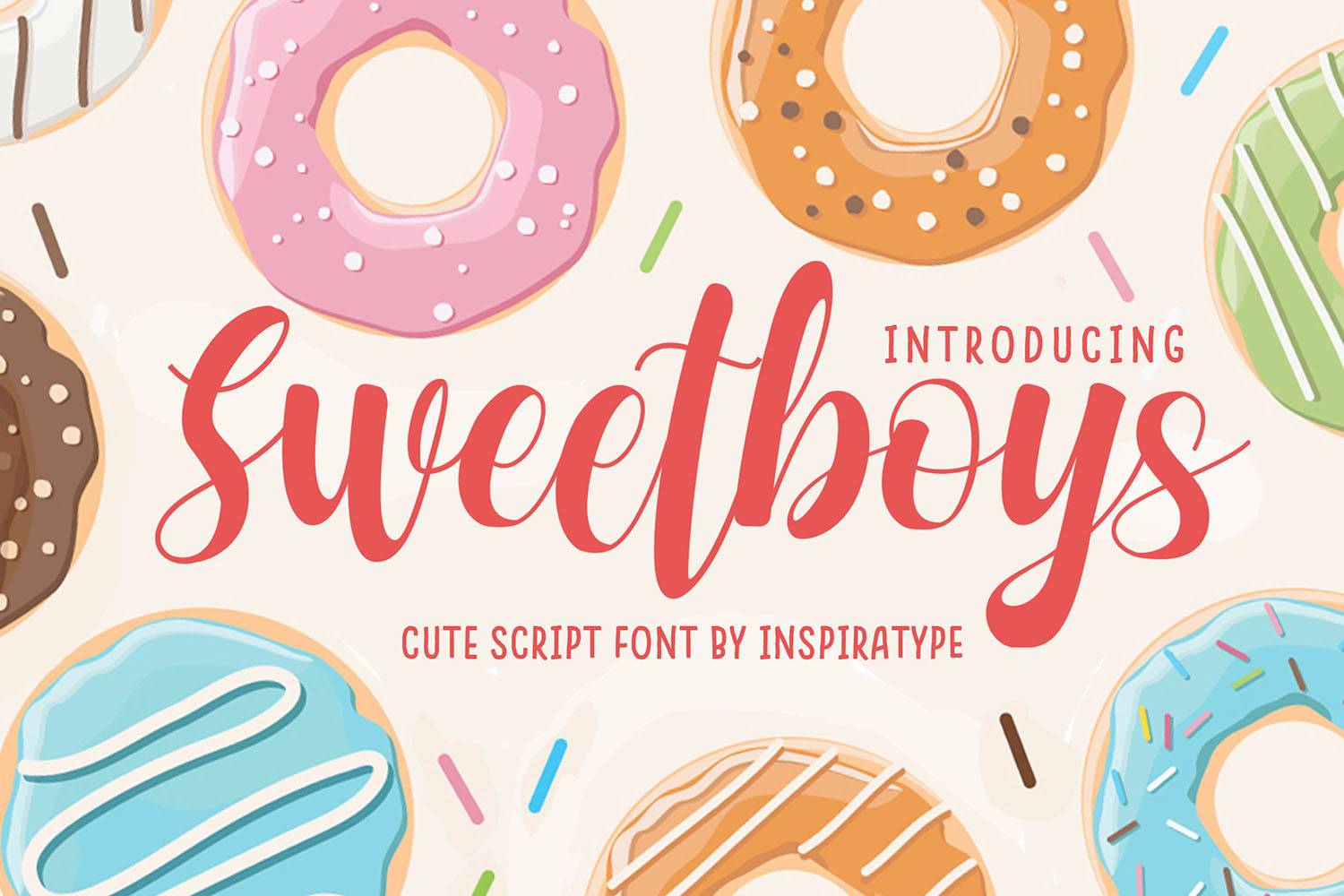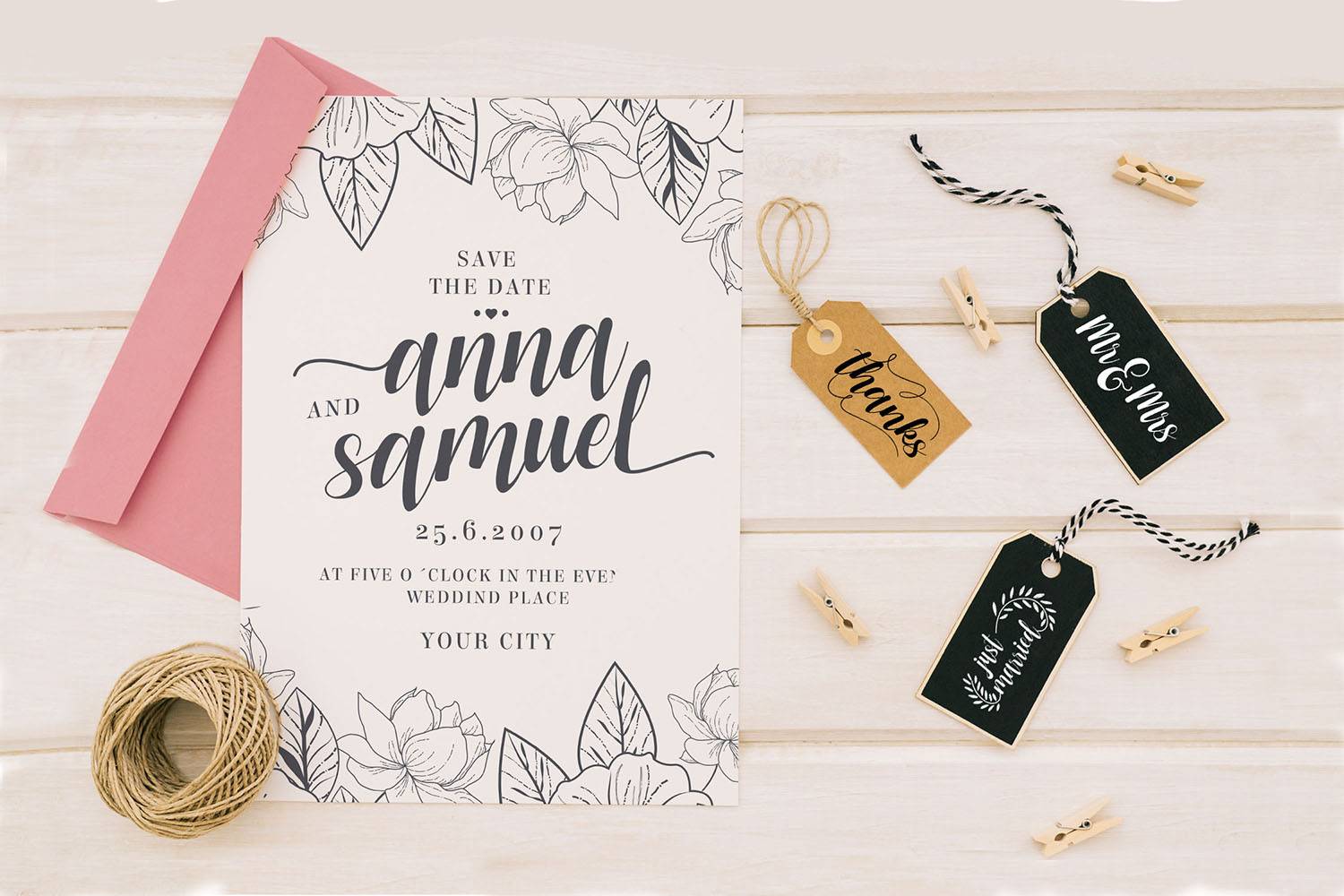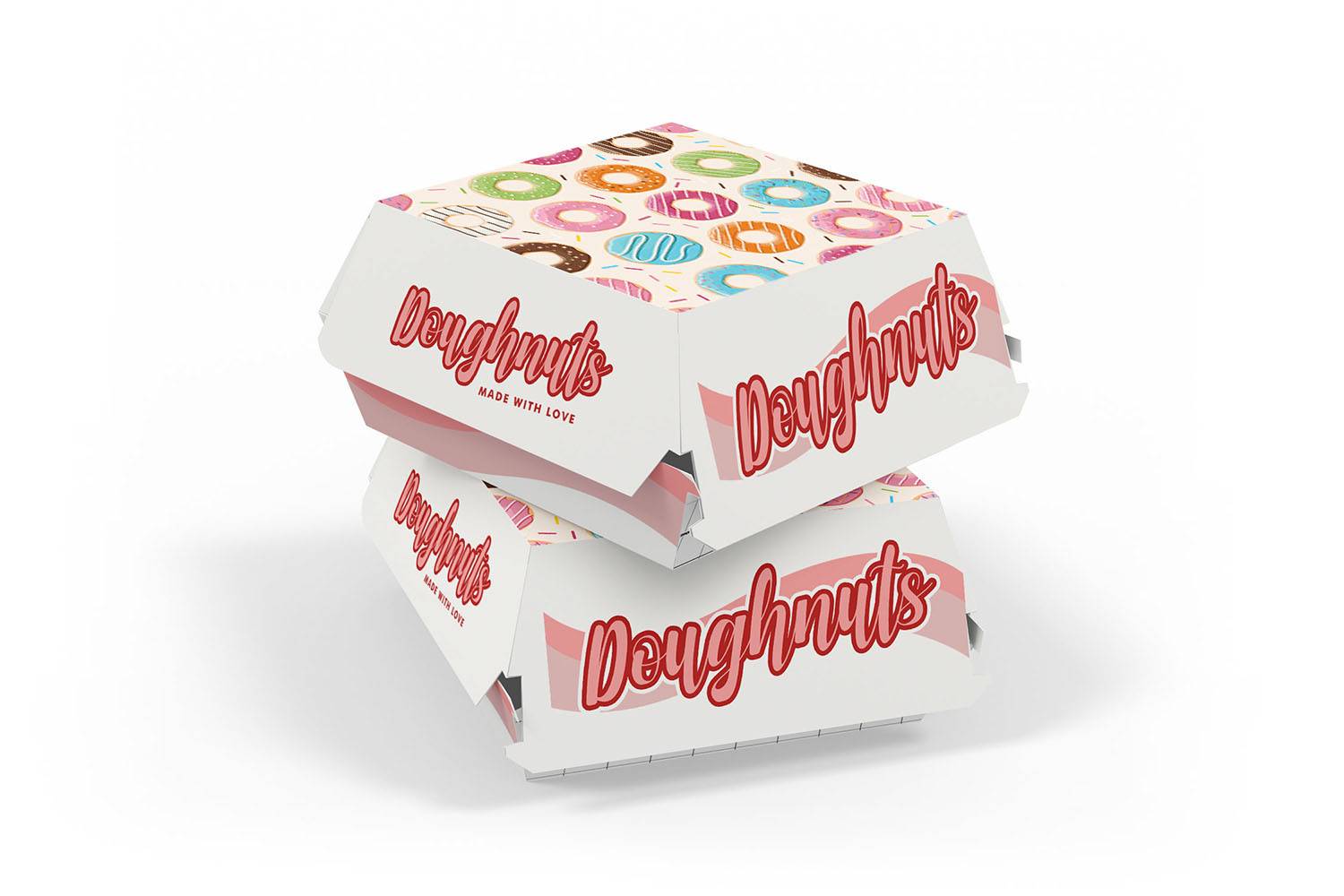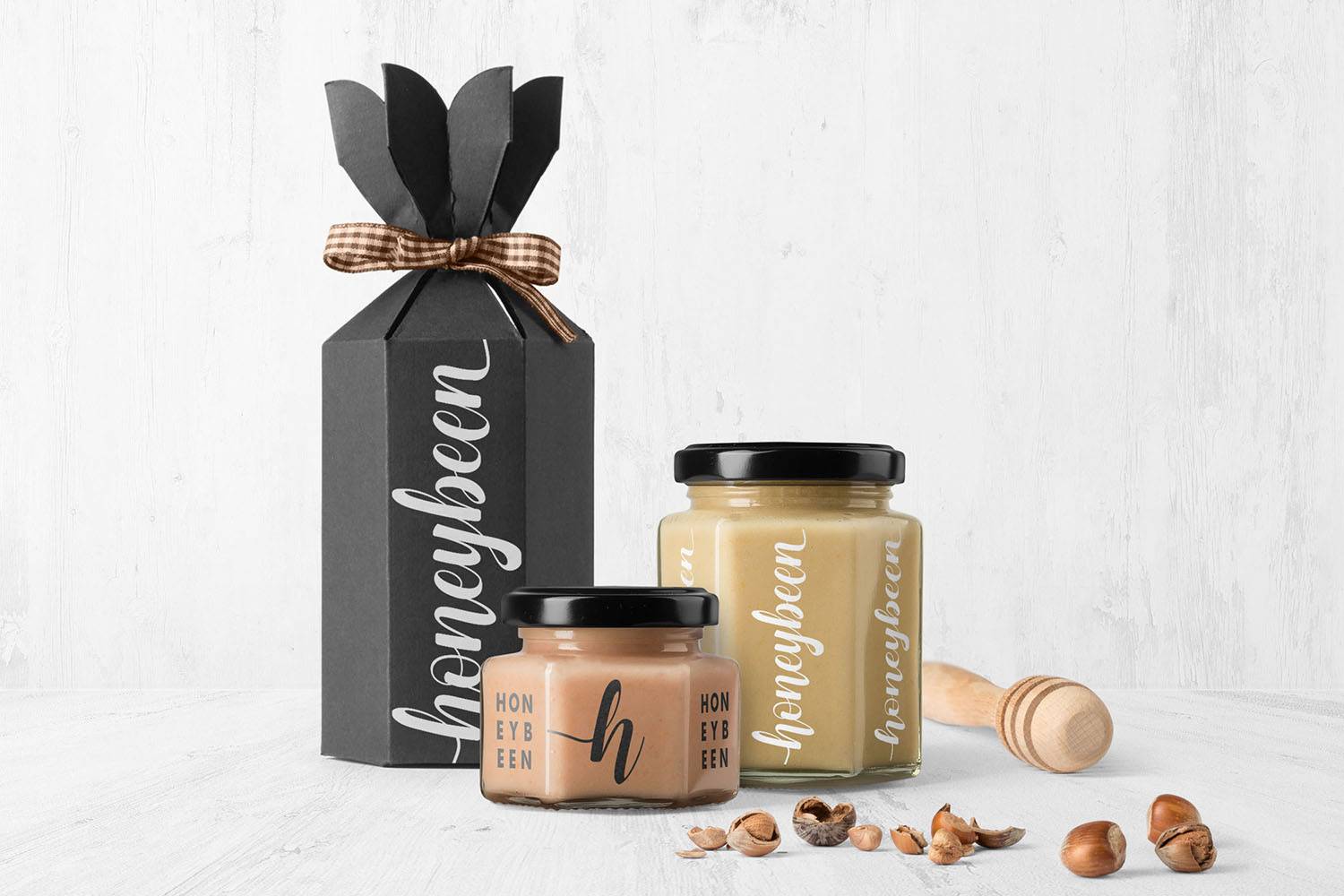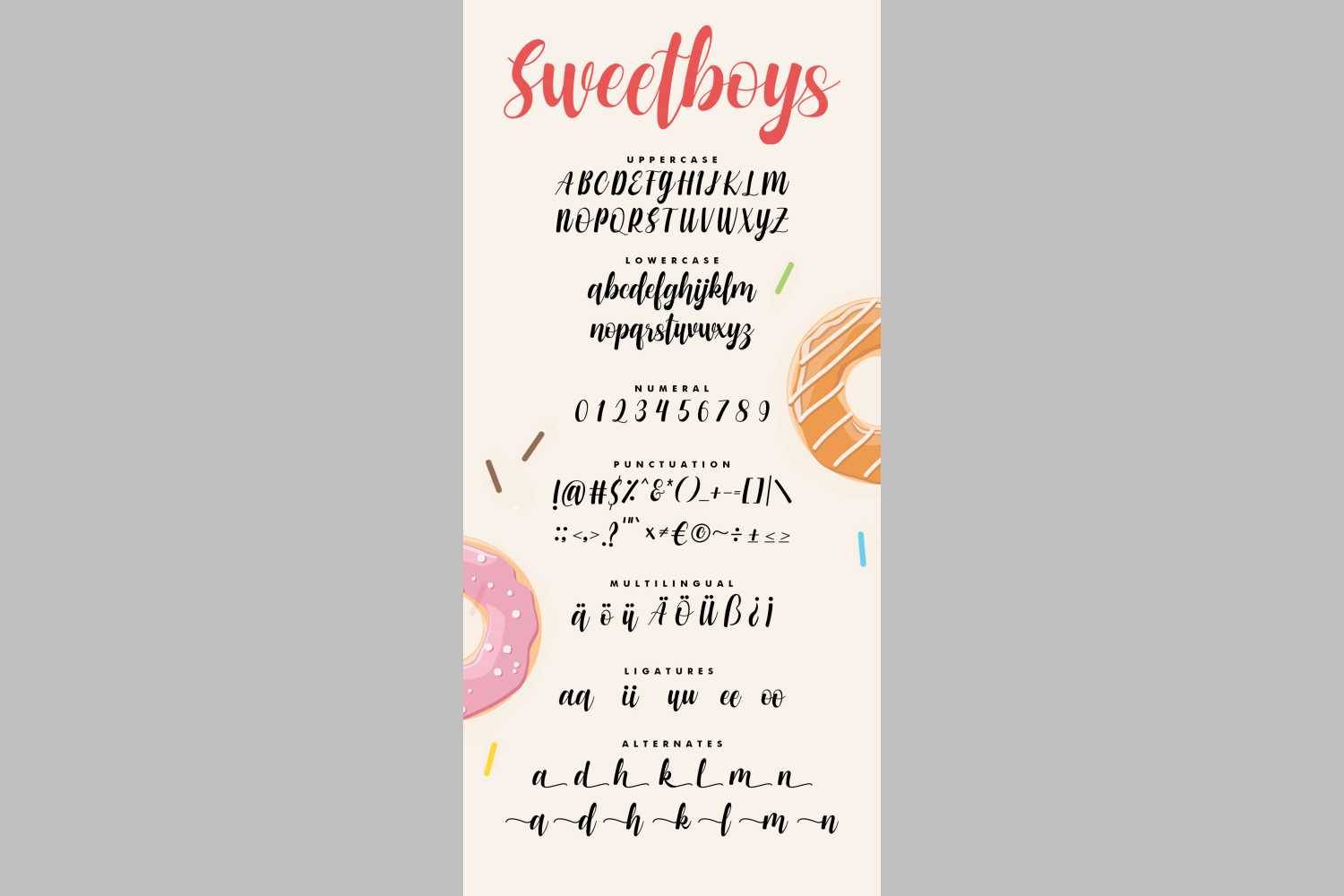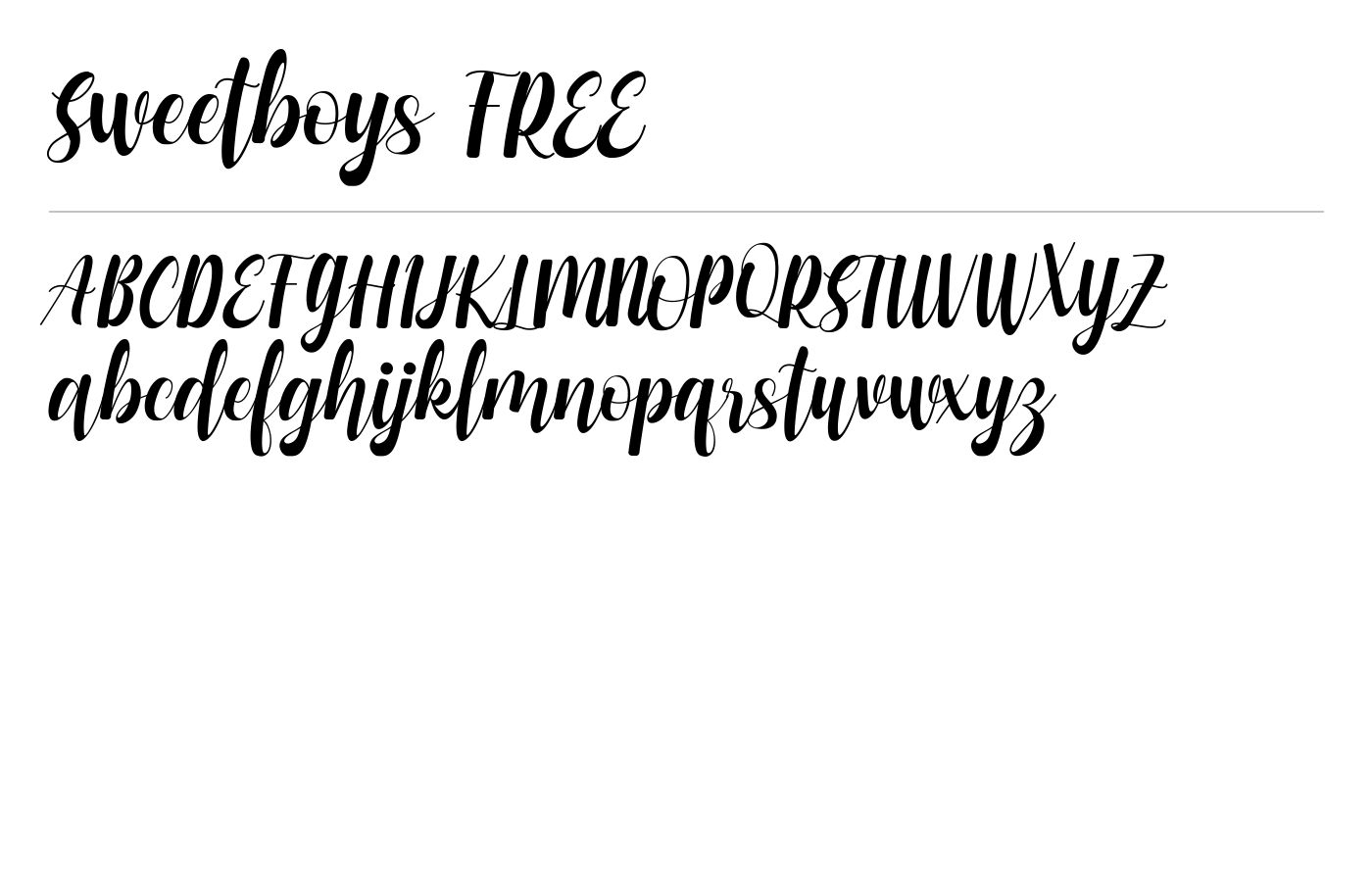
Sweetboys is a stylish script font that combines elegant, flowing strokes with a bold weight, giving it a lively and sophisticated appearance. Its smooth, cursive letterforms and distinct swashes make it perfect for creative design projects, fashion branding, invitations, and headlines that want to convey charm and personality. This font works best where a modern yet graceful handwritten feel is needed to capture attention with warmth and style.
| Font family | Sweetboys Font |
| Designer | Inspiratype |